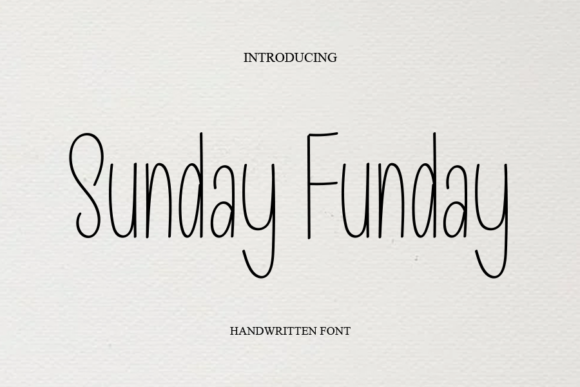
Dive into the realm of enchanting artistry with Sunday Funday, a script font brimming with personality and charm. Prepare to be captivated by its delicate strokes and playful curves, meticulously crafted to bring a touch of whimsical elegance to your creative endeavors. As you explore the depths of this font's allure, you'll discover an array of captivating alternates, swashes, and ligatures, each meticulously designed to add a touch of magic to your text.
Allow Sunday Funday to be your muse as you embark on a journey through the world of interior design. Its graceful lines and enchanting charm will effortlessly elevate your spaces, transforming them into realms of tranquility and inspiration. Picture the walls of your living room adorned with Sunday Funday's elegant curves, inviting you to sink into a world of serenity and comfort. Let your imagination run wild as you envision your bedroom enveloped in the font's whimsical embrace, creating a sanctuary where dreams dance and stories unfold.
Sunday Funday's versatility extends beyond the confines of home décor. Unleash its potential in the realm of branding and marketing, captivating your audience with its undeniable allure. Design logos that exude sophistication and charm, leaving a lasting impression on potential customers. Craft marketing materials that radiate warmth and approachability, drawing your audience into a world of captivating storytelling. Allow Sunday Funday to be the secret ingredient that elevates your brand to new heights of recognition and success.
With Sunday Funday, the possibilities are boundless. Its enchanting nature knows no limits, ready to adorn invitations, greeting cards, and social media posts with a touch of whimsy and delight. Let your imagination soar as you explore the endless applications of this captivating font, transforming ordinary text into extraordinary works of art. As you immerse yourself in the world of Sunday Funday, you'll uncover a font that is not merely a tool, but an expression of your creativity, a gateway to a world where imagination reigns supreme.